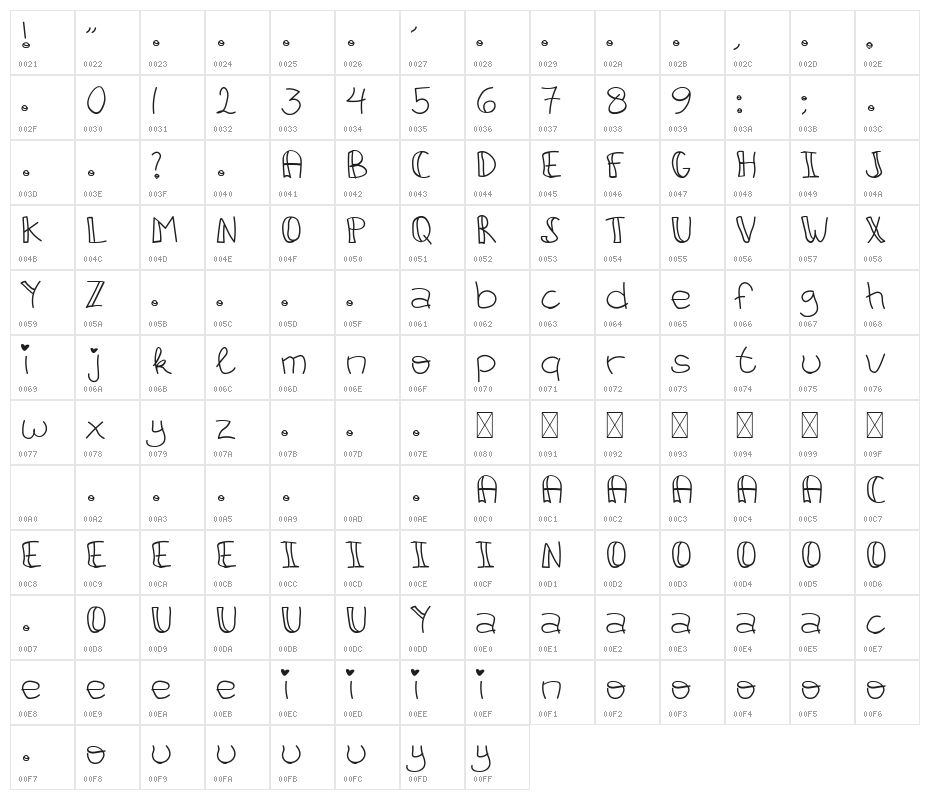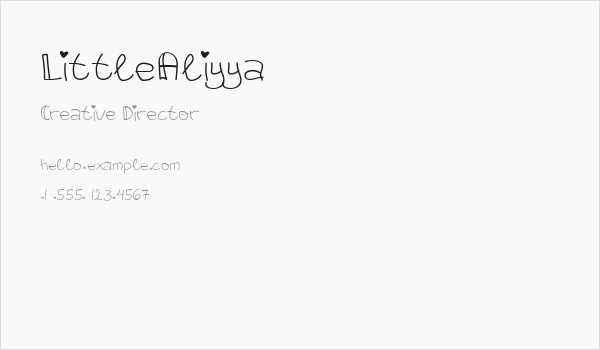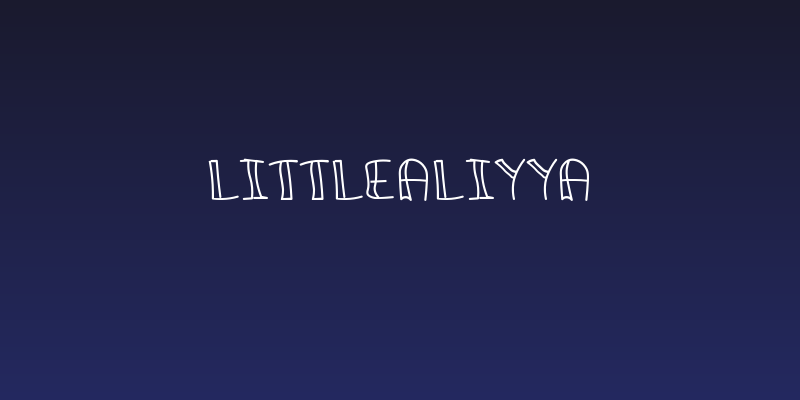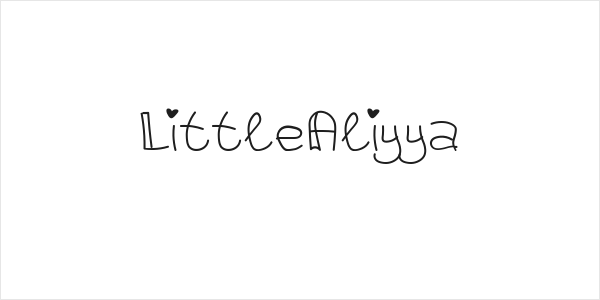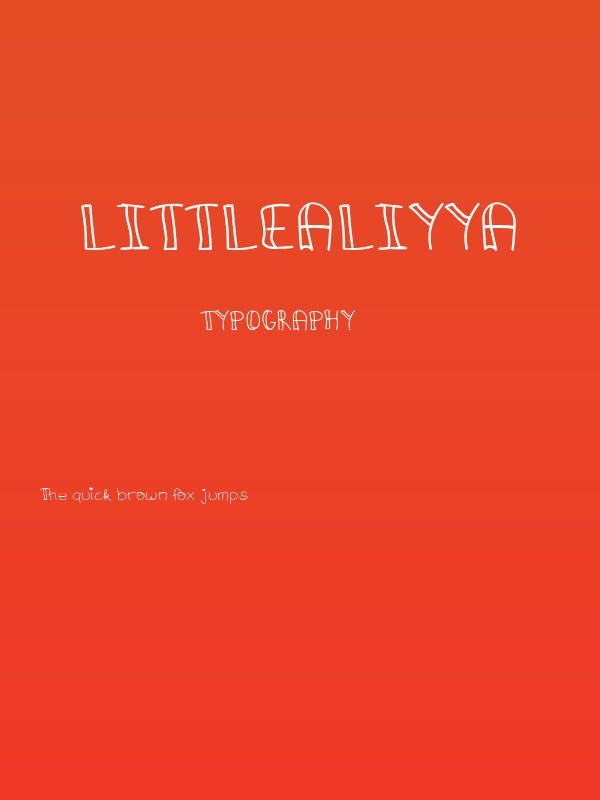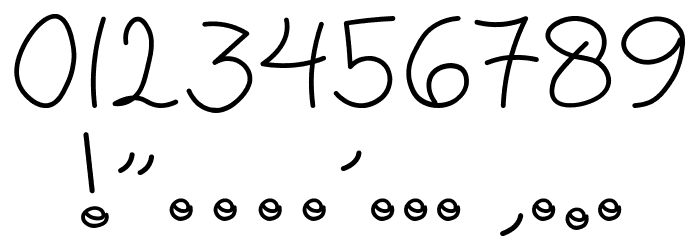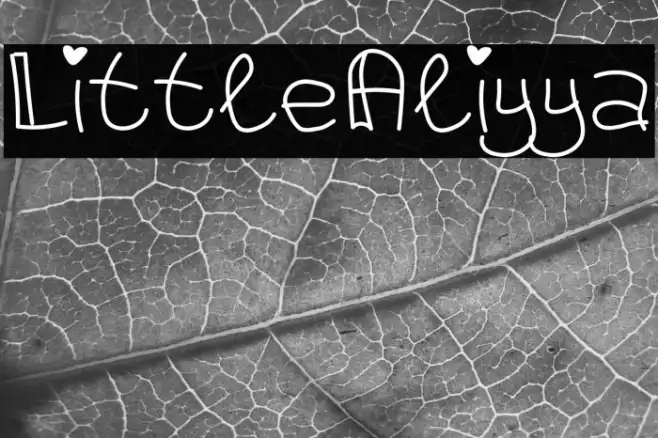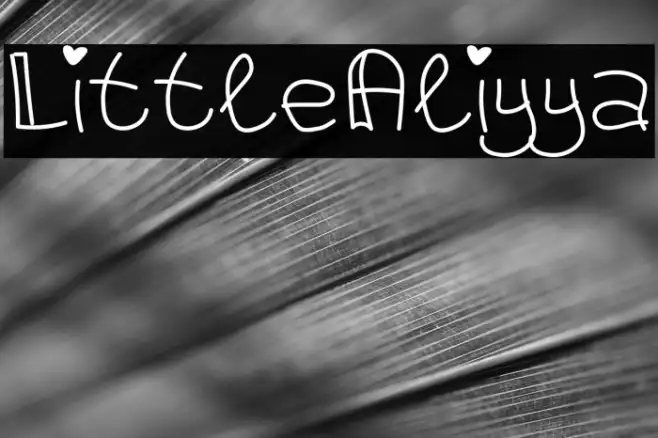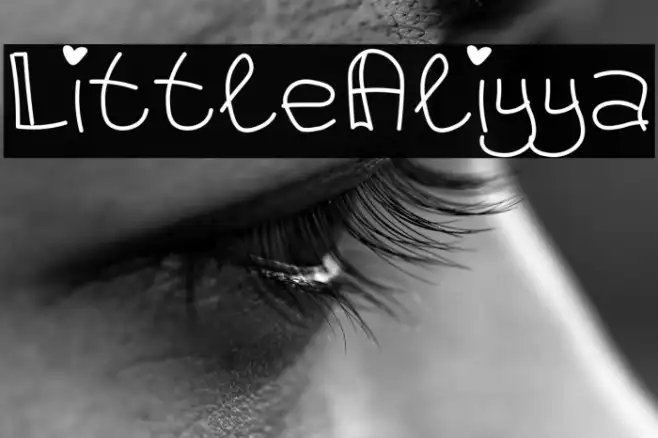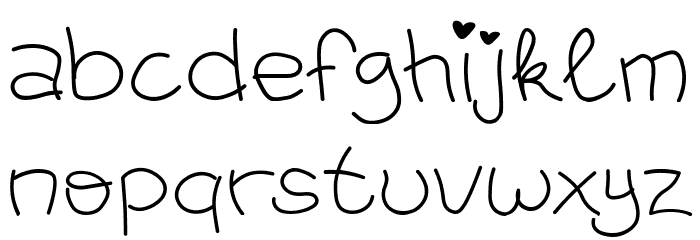
LittleAliyya Font
LittleAliyya Description
This playful and whimsical font features a hand-drawn style with a unique charm. The uppercase letters have a quirky, uneven appearance, while the lowercase letters are more rounded and smooth, adding a friendly touch. The numbers are bold and slightly exaggerated, maintaining the font's playful nature. Special characters like the heart-shaped dots over the 'i' and 'j' add a delightful, personalized feel. The overall design is informal and fun, making it perfect for projects that require a lighthearted and approachable aesthetic.
| Overall Style | Whimsical |
| Proposed Projects | Ideal for children's books, greeting cards, playful branding, and casual invitations. |